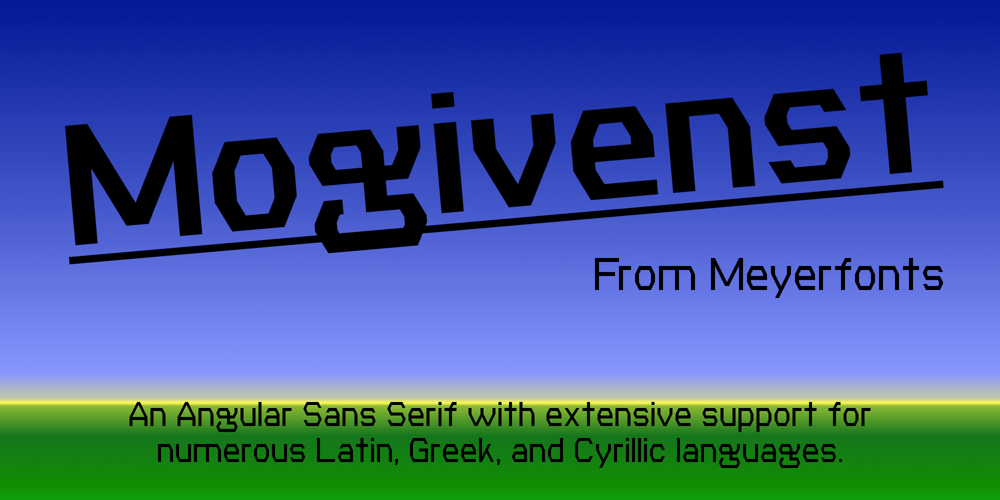
Mogivenst Font Family was designed by Bryndan Meyerholt and published by Meyerfonts. Mogivenst contains 4 styles and family package options. Mogivenst is an angular sans serif typeface that has extensive support for numerous Latin, Greek, and Cyrillic based languages. It can be used for a lot of purposes such as billboards, videos, books, campaigns, games, novels, artworks, posters, signage, and so many more.The characters for 7-segment displays and Arbitrary fractions are located in the Private Use Area at U+E000 and U+E100 respectively.